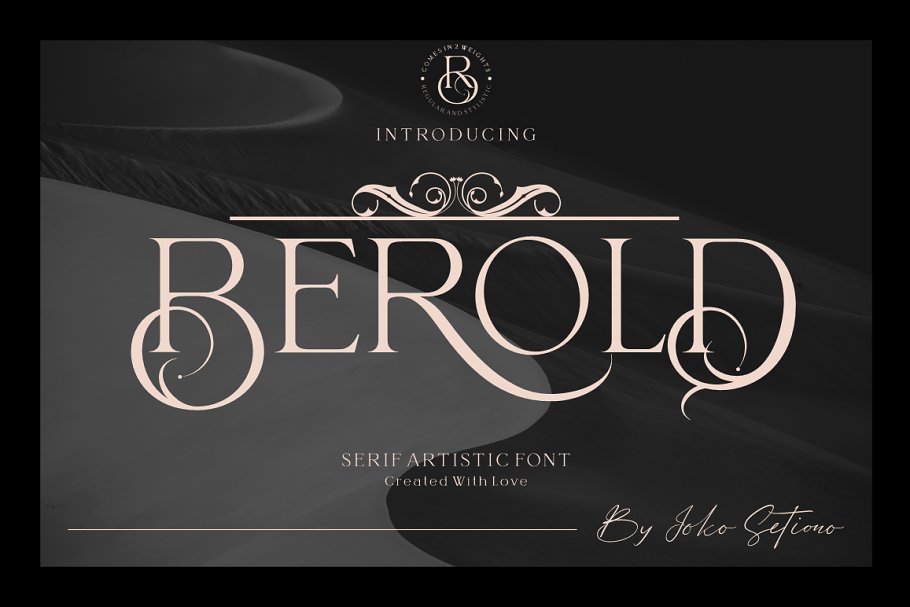
Introducing Berold - Artistic Serif Font, the ultimate font collection for those seeking the best fonts for clothing lines. Created by the talented designer, Joko Setiono, this modern serif font combines classic style with a unique uppercase twist, making it perfect for a wide range of design projects.
Whether you're working on a fashion blog, Instagram posts, branding materials, invitations, business cards, or even weddings, Berold is the font that will elevate your designs to a whole new level. With its three alternative character sets for both uppercase and lowercase letters, you can create captivating and one-of-a-kind word start and end appearances.
Berold comes in two styles: Berold Regular and Berold Stylistic. Each style offers a different look and feel, allowing you to experiment and customize your designs according to your preference. From old-style to modern and clean, this font has it all. Its serif black letter design exudes elegance and simplicity, ensuring a polished and professional look for your projects.
One of the standout features of Berold is its versatility. It is the perfect choice for various design needs, including logos, invitation cards, magazines, and web design. No matter the importance of your project, this font will deliver stunning results and leave a lasting impression on your audience.
Not only does Berold offer exceptional design possibilities, but it also caters to a global audience. With multiple language support, including the Russian alphabet, you can reach a broader range of customers and create truly inclusive designs.